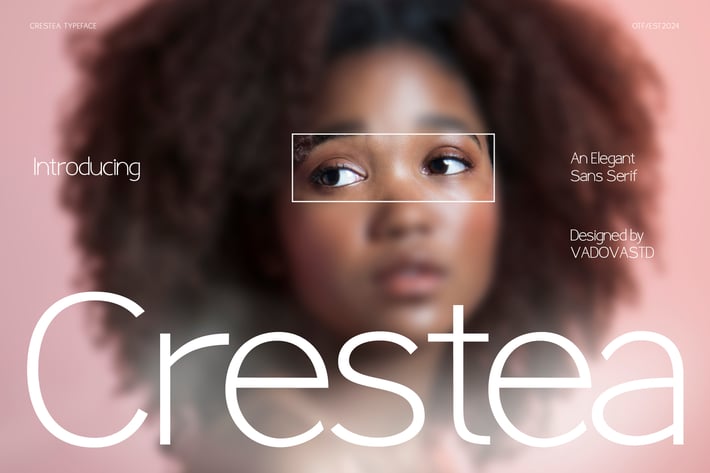
Crestea Elegant Sans Serif Font
Crestea Elegant Sans Serif Font Crestea is an elegant and modern sans serif font designed to bring sophistication and softness to visual communication. With its clean, minimalist strokes and high readability, Crestea is perfect for feminine branding, beauty product packaging, lifestyle magazines, and professional presentations. This typeface blends luxury and simplicity, making it ideal for upscale logos, social media graphics, or editorial layouts. Whether you're designing for a skincare brand or a fashion campaign, Crestea adds a graceful and professional tone.